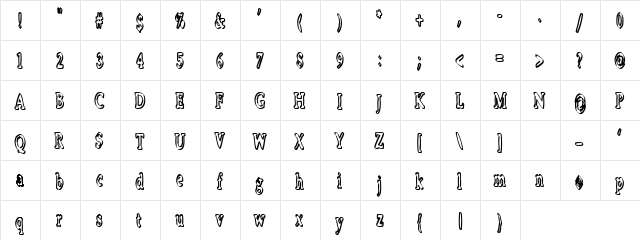
Boosta Regular
Design Context for Boosta Typeface
Boosta is a composed and adaptable typeface that performs quietly and consistently across a wide range of design contexts.